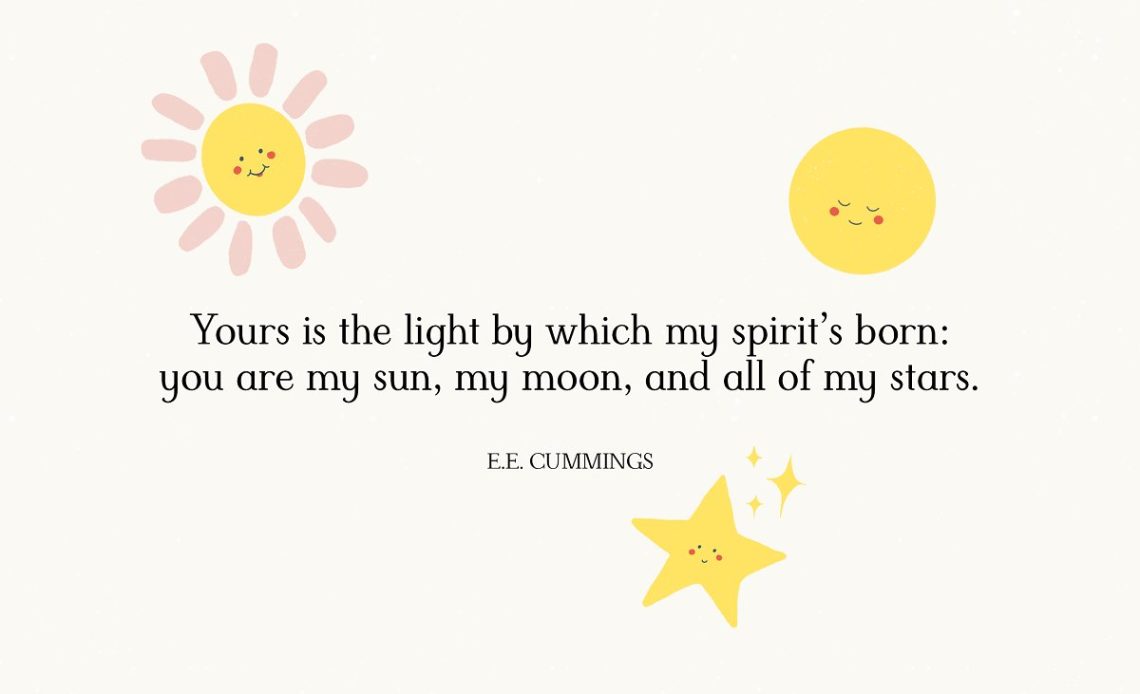
Introducing Lunatoire – story of the moon. A spin around the classic serif font. Have you discovered its mysteries and character, the story it is telling? A serif font perfect for your brand design, editorial project. It is your turn to telling your story.
Features:
– Uppercase and Lowercase
– Numerals and Punctuation
– Accented characters
– Multilingual support